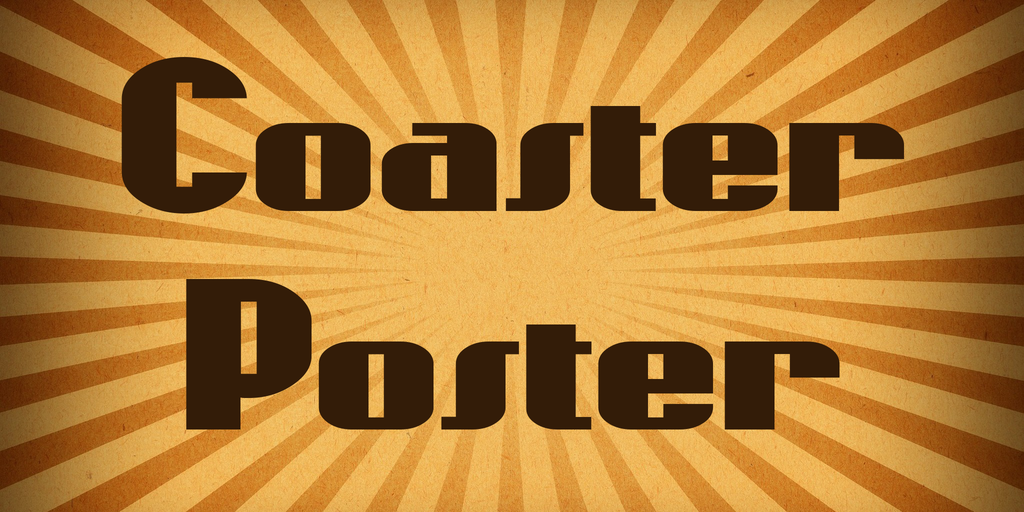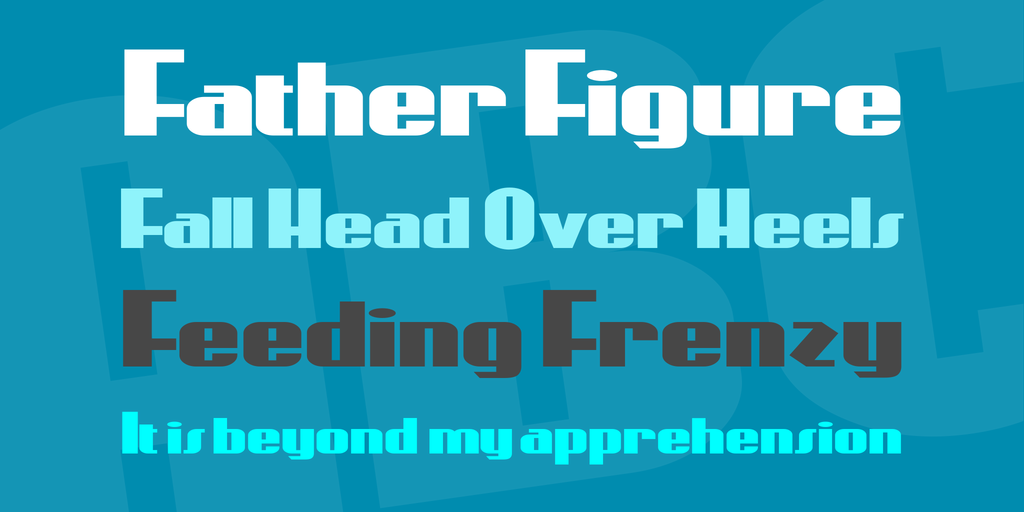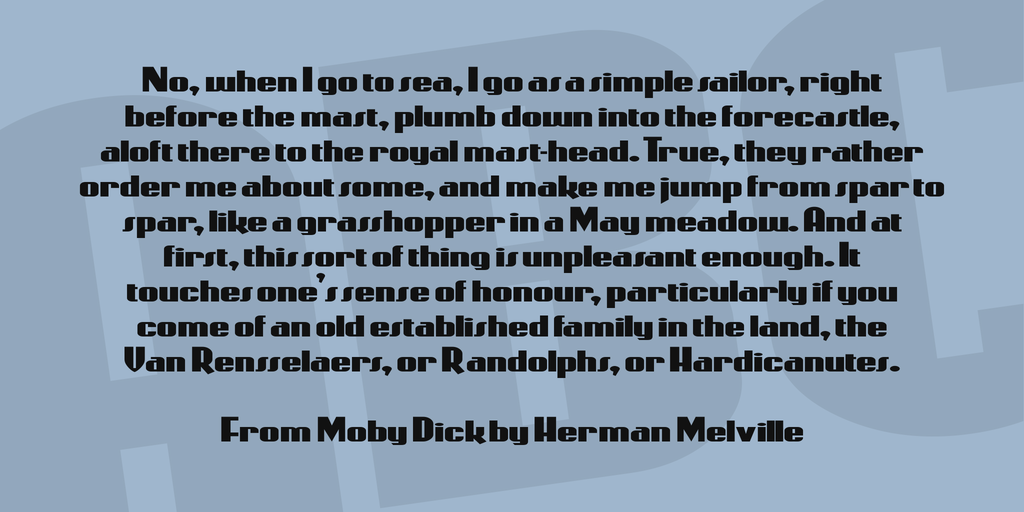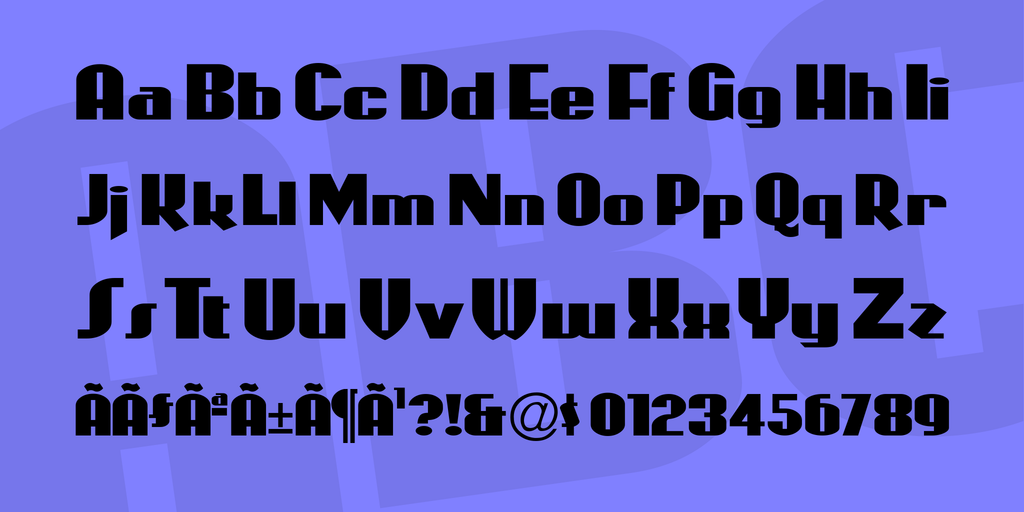
Coaster Poster Font
Coaster Poster Font Made by Nick Curtis
A big, bold, no-nonsense headline font inspired by handcut silkscreen posters of the 30’s.